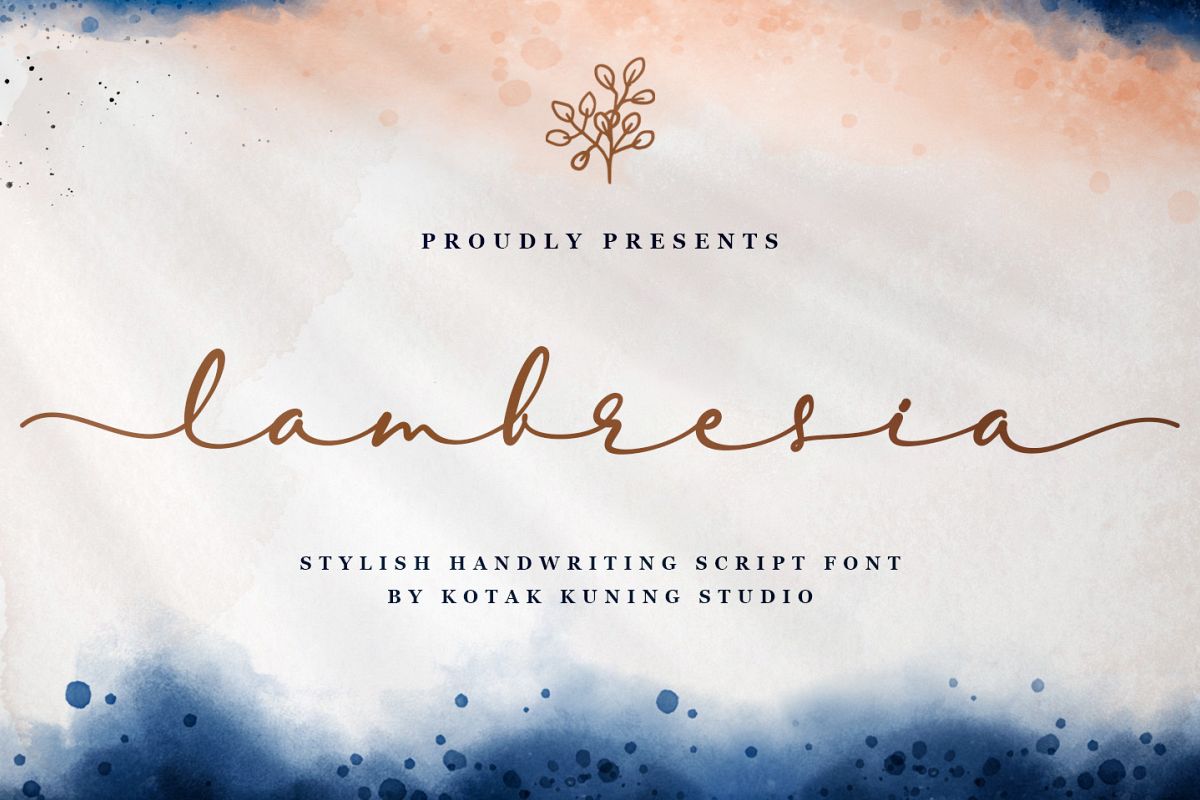
Elegant Script - Lambresia Font
Lambresia
Lambresia is a handwritten script with a natural & stylish flow. This font has a multitude of natural looking ligatures in its OpenType features - making the font look as close to natural handwriting as possible. This collection of scripts is perfect for branding.
• Lambresia includes capital and lowercase letters, alternates, and Ligatures